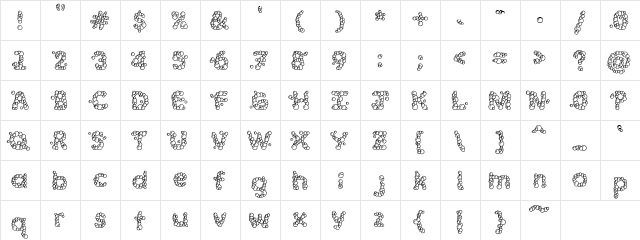
PC Bubble Bath Regular
Design Context for PC Bubble Bath Typeface
PC Bubble Bath has an approachable, lighthearted character — its loose, expressive forms are well-suited to children's content, casual branding, and fun-first design.
Well-suited to food and beverage brands with personality, educational materials, and fun-forward identities.
Font Pairing: Pairs well with a rounded or humanist sans for body copy, maintaining the friendly tone without relying on PC Bubble Bath to carry extended reading.
Pro Tip: Use PC Bubble Bath at larger display sizes where its expressive character can land. Pair with a clean, simple sans for body copy to maintain readability.